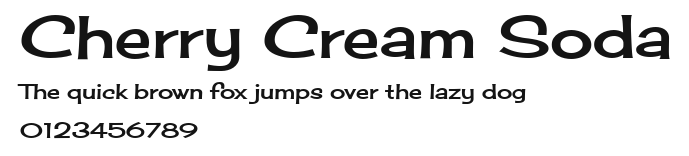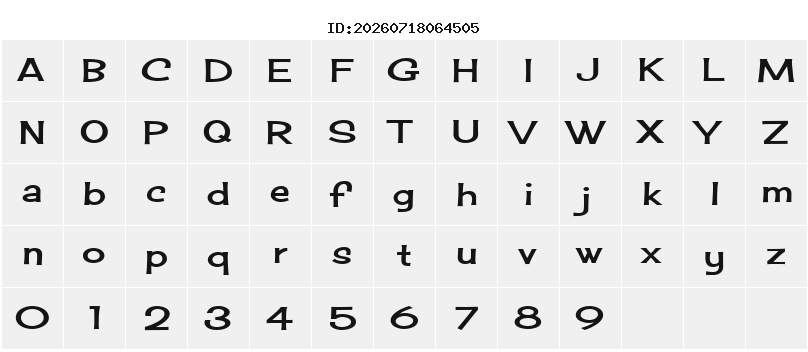
• Font Name: Cherry Cream Soda
• Designer: Font Diner, Inc
About Cherry Cream Soda.ttf
Cherry Cream Soda.ttf is a modern, elegant sans-serif font designed for ultimate readability and visual harmony. Perfect for branding, headlines, web design, and print materials.